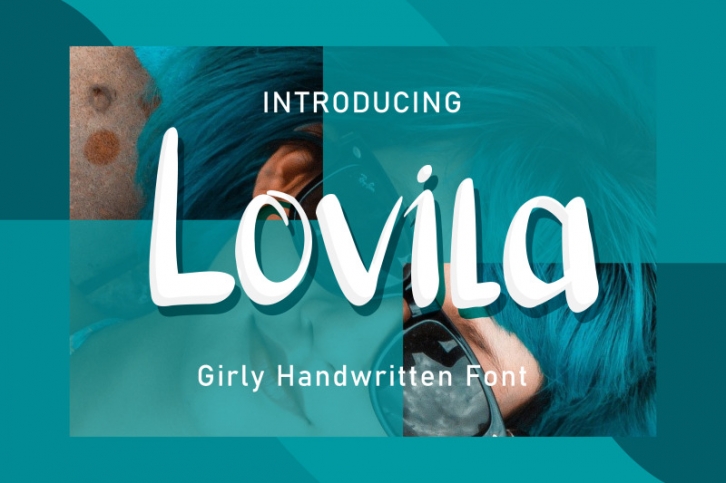
Loliva Font is Girly handwritten stylish font with Casual shape and beauty looks, more girly and more cute
Loliva Font perfect for branding projects, logo, wedding designs, social media posts, advertisements, product packaging, product designs, label, photography, watermark, invitation, stationery and any projects that need Girly Touch.